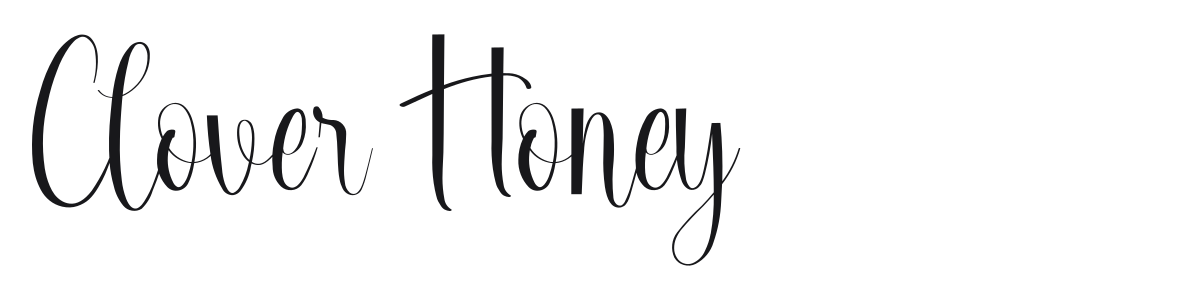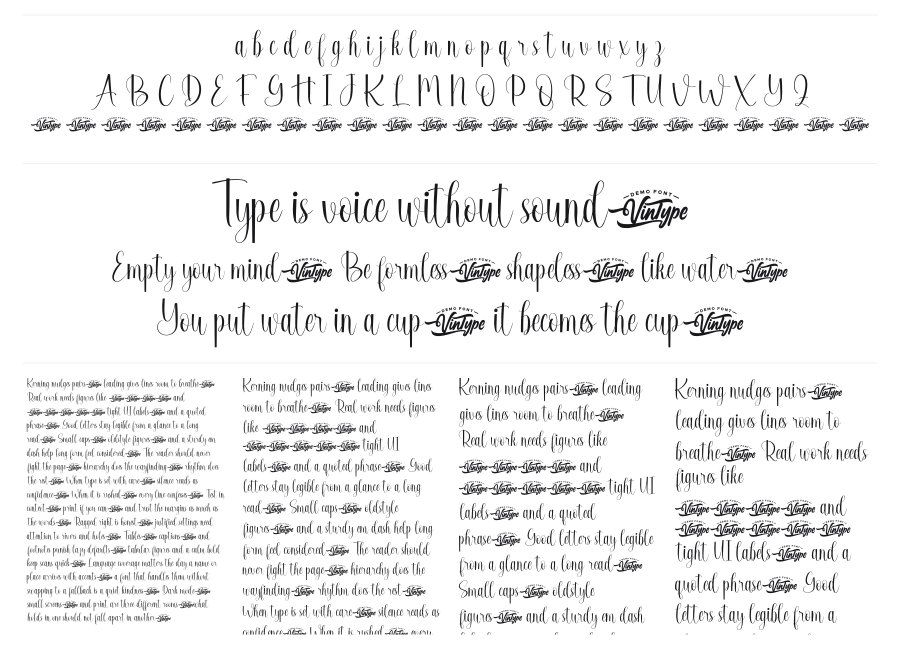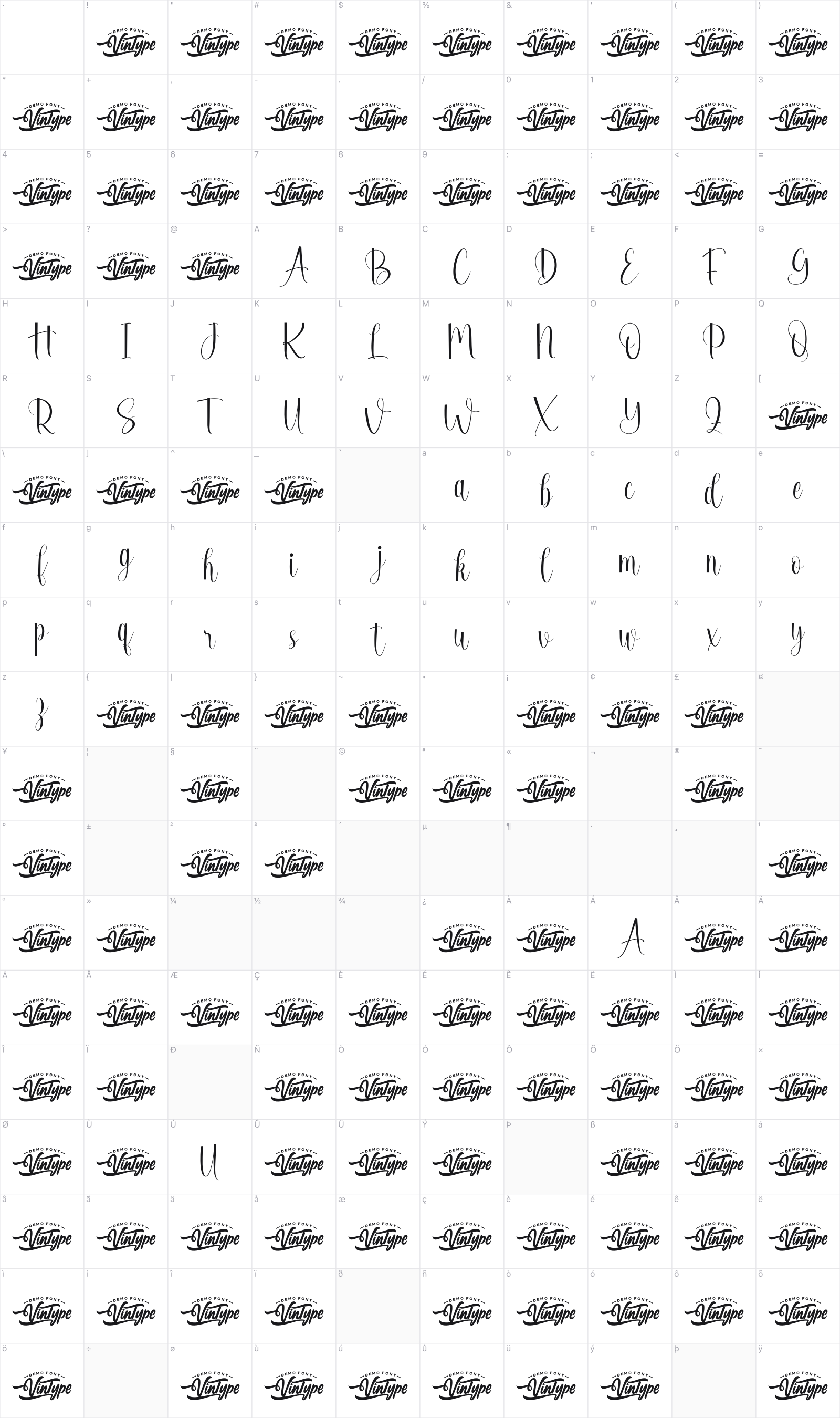
Clover Honey
Clover Honey is a flowing calligraphic script from VinType Studio with the high stroke contrast of traditional pointed-pen writing. Generous ascenders and descenders trail into graceful loops and swashes, giving it a light, celebratory energy. It reads equally well as a wedding invitation headline or a lifestyle brand wordmark.